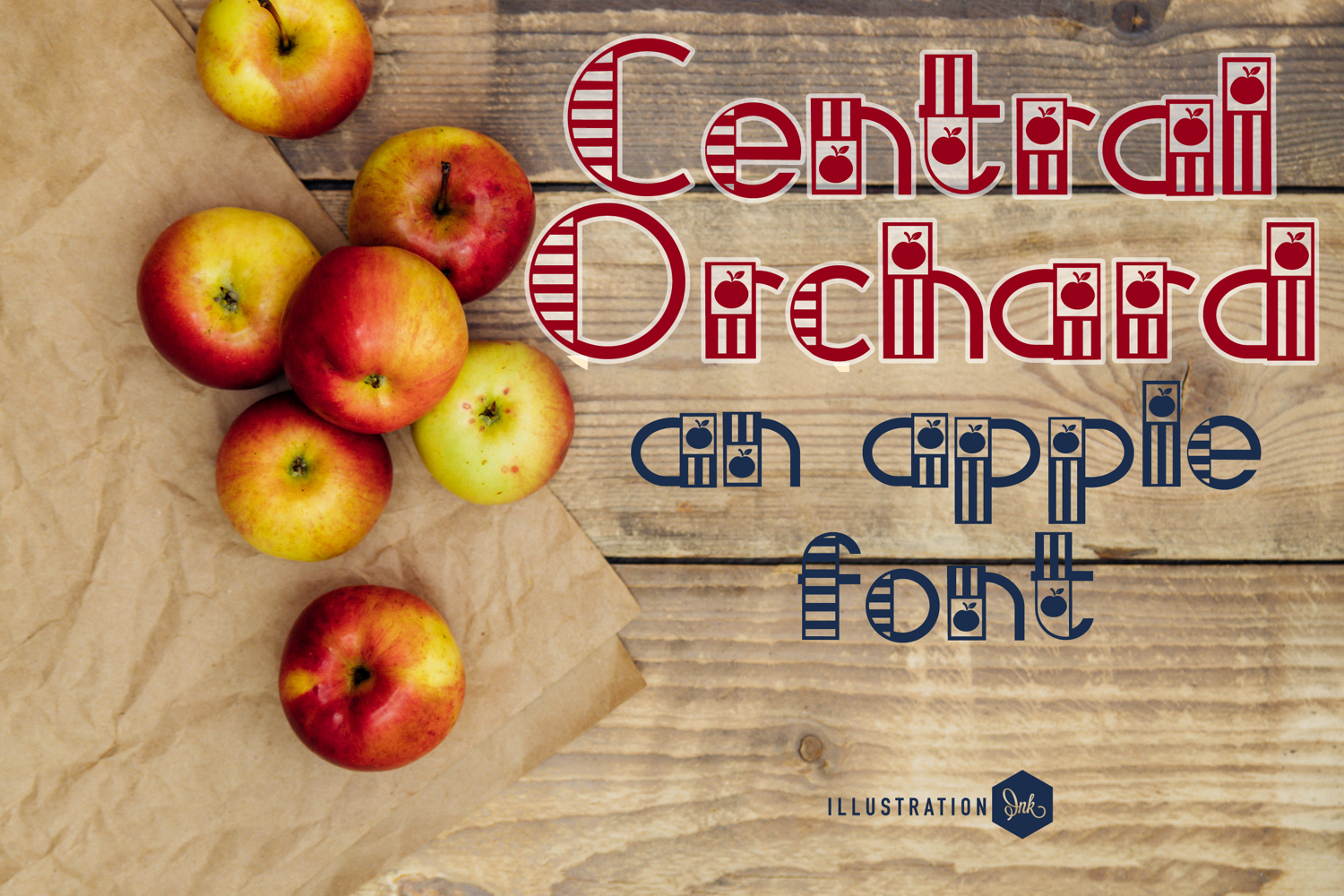
Central Orchard Font Family
This hand-crafted font is a whimsical, sans serif, Autumn font sporting little apples and stripes.
• The letters are not perfectly uniform in size or shape.
• There may be slight variations in the spacing between letters and words.
• The font may have a "wiggly" or "squiggly" appearance.
• The font may be difficult to read at small sizes.